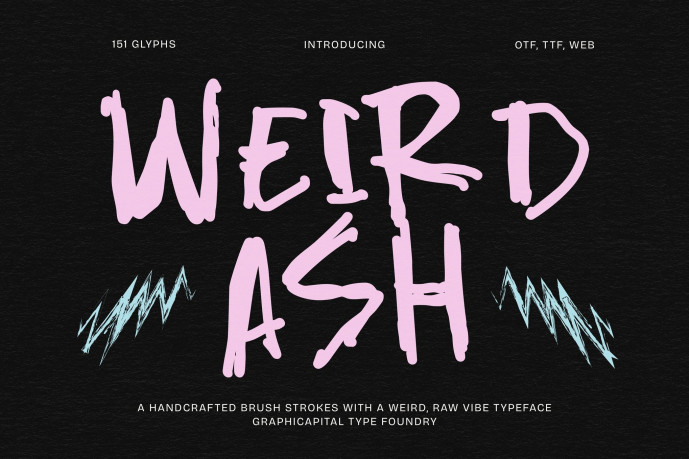
Weirdash Handcrafted Font
Designer: Graphicapital
Weirdash Handcrafted Font is a handcrafted brush display font with wild, rough, and expressive strokes that create a raw and edgy personality. Inspired by spontaneous brush movements, each character feels unique, messy, and full of energy.